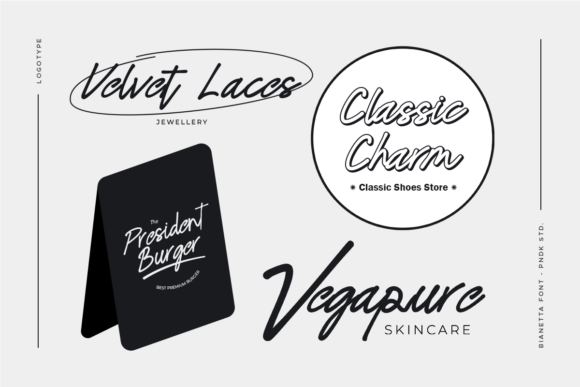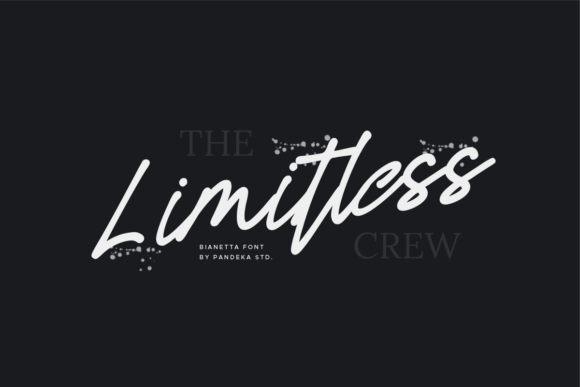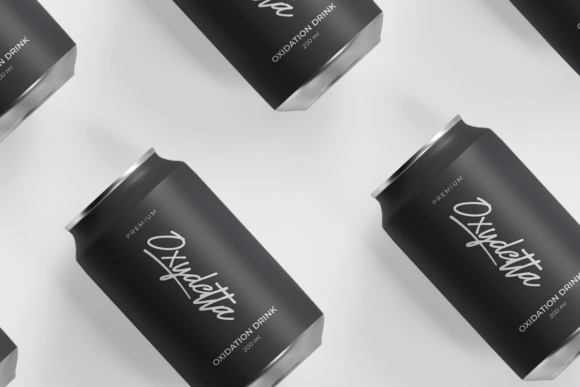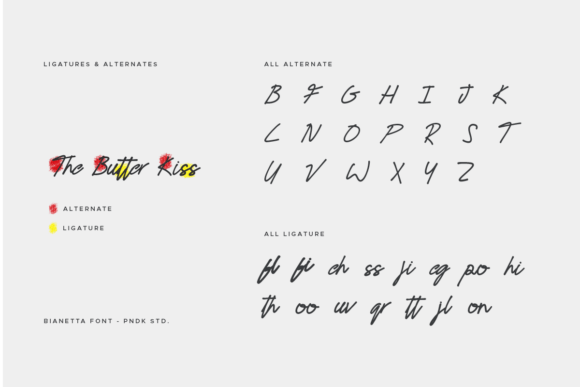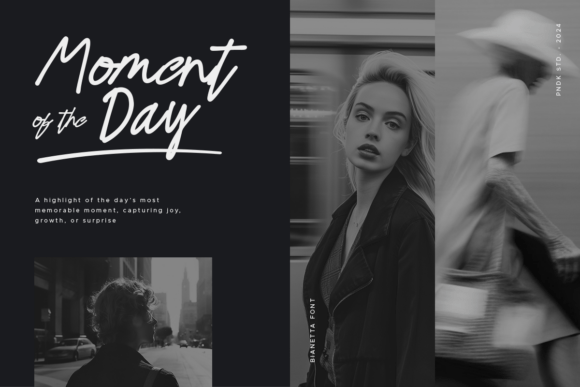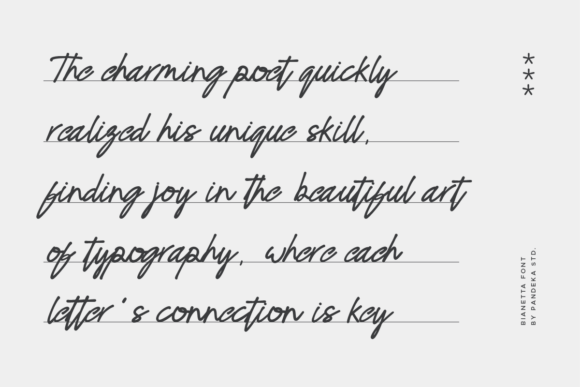
Bianetta Font: Elevate Your Design with Elegant Script Typography
In the world of typography, a font can make or break a design. For designers and crafters seeking to add a touch of sophistication and elegance to their projects, the Bianetta font is an excellent choice. This modern script font boasts stylish calligraphy and chic typography, making it perfect for a wide range of applications.
What is Bianetta Font?
Bianetta is a modern script font designed to emulate smooth handwriting. Its elegant lettering and flowing lines make it an ideal choice for designers looking to add a personal touch to their work. With its stylish calligraphy and chic typography, Bianetta is sure to elevate any project to the next level.
Key Features of Bianetta Font
- Elegant Lettering: Bianetta features beautiful, flowing letterforms that are perfect for creating stunning text-based designs.
- Stylish Calligraphy: The font’s calligraphic style adds a touch of sophistication and elegance to any project.
- Chic Typography: Bianetta’s typography is both modern and stylish, making it perfect for a wide range of design applications.
- Graceful Underline Swashes: The font features underline swashes that can be accessed via “_1” to “_7”, adding an extra touch of elegance to your designs.
Using Bianetta Font in Your Designs
Bianetta is a versatile font that can be used in a variety of design applications, including:
- Branding and Logo Design: The font’s elegant lettering and stylish calligraphy make it perfect for creating stunning logos and brand identities.
- Stationery and Invitations: Bianetta’s chic typography and flowing lines make it ideal for creating beautiful stationery and invitations.
- Digital Design: The font’s modern style and elegant lettering make it perfect for use in digital designs, such as website headers and social media graphics.
- Crafting and Scrapbooking: Bianetta is also a great choice for crafters and scrapbookers looking to add a touch of elegance to their projects.
Tips for Getting the Most Out of Bianetta Font
To get the most out of Bianetta, here are a few tips:
- Experiment with Underline Swashes: The font’s underline swashes can add an extra touch of elegance to your designs. Experiment with different swashes to find the one that works best for your project.
- Play with Font Sizes: Bianetta looks great in a variety of font sizes. Experiment with different sizes to find the one that works best for your design.
- Pair with Other Fonts: Bianetta pairs well with a variety of other fonts. Experiment with different pairings to find the one that works best for your project.
In conclusion, Bianetta is a stunning modern script font that is perfect for designers and crafters looking to add a touch of elegance and sophistication to their projects. With its elegant lettering, stylish calligraphy, and chic typography, Bianetta is sure to elevate any design to the next level. Whether you’re working on a branding project, creating stationery, or crafting a digital design, Bianetta is an excellent choice.